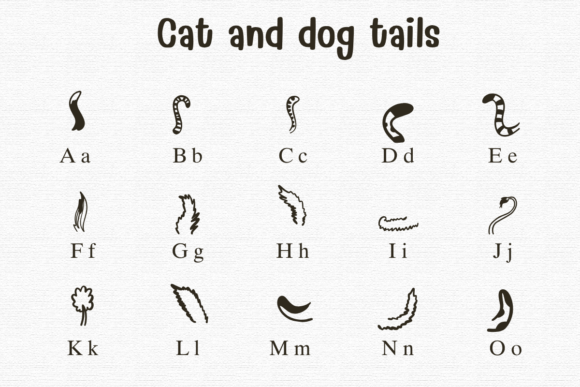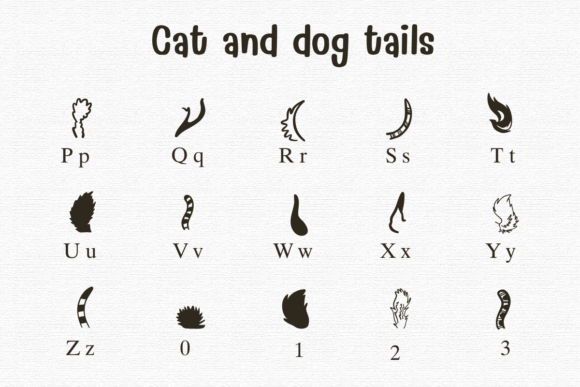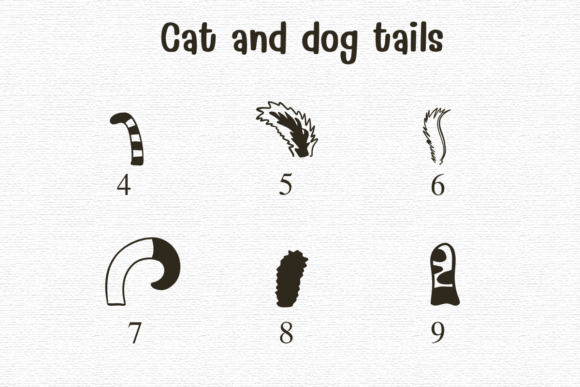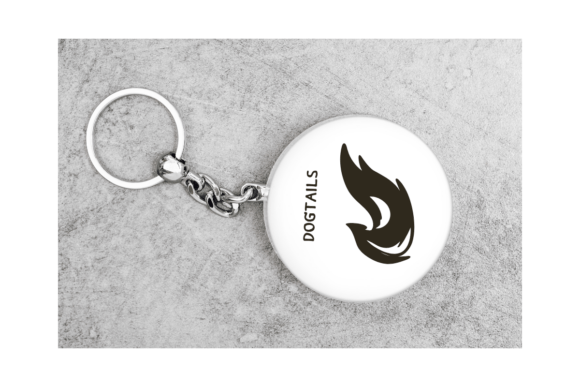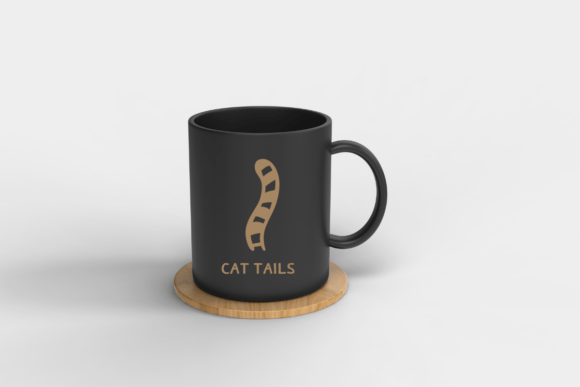
Introduction to Cat and Dog Tails Font
A quirky and playful dingbats font packed with hand-drawn cat and dog tail illustrations.
Perfect for pet-themed projects, animal branding, childrenโs books, or adding whimsical flair to your creative works Includes a variety of tail shapesโfrom fluffy and curly to sleek and swishy.
Key Features of Cat and Dog Tails Font